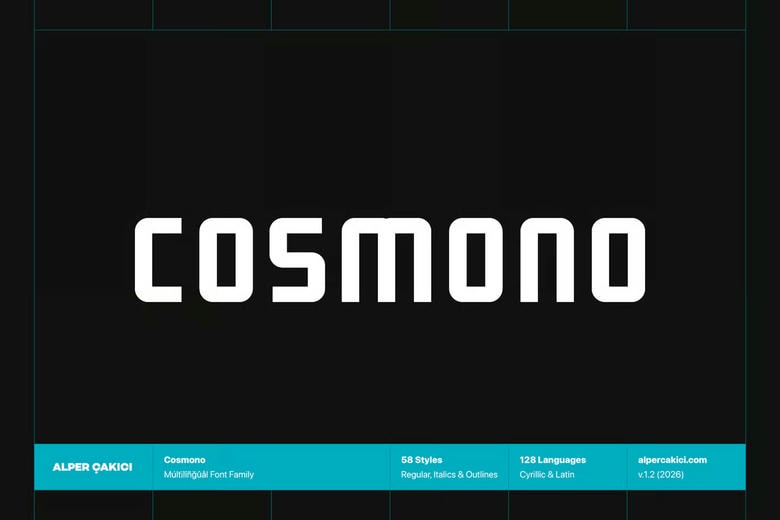
Cosmono Font Family
Cosmono Font
Cosmono is a modern type family with rounded shapes and a hint of futuristic stencil style. With 58 styles, it gives designers plenty of options to create different looks while keeping a unified feel.
Cosmono is more than a font family. It’s a rounded, modern type system made for designers who need flexibility, clarity, and a touch of the future in every style.
Cosmono Sans Serif Font Family